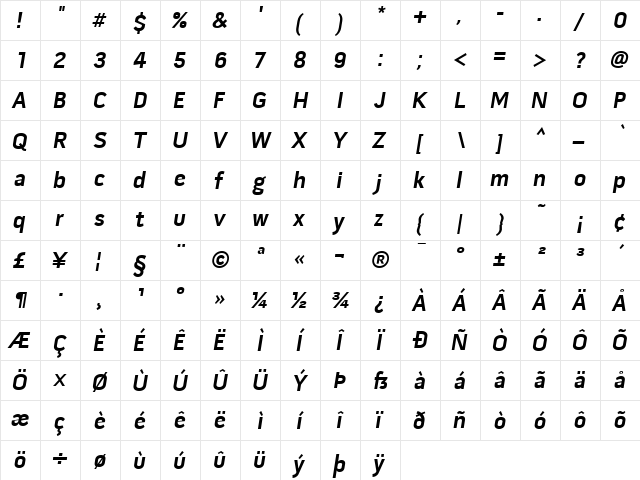
Pill Gothic 600mg Bold Obq
| Designer | Christian Robertson |
Design Context for Pill Gothic 600mg Typeface
Pill Gothic 600mg takes a clean, functional approach — its unadorned letterforms prioritise legibility and work reliably across screen and print environments. The heavy weight commands attention and anchors typographic hierarchies.
Well-suited to navigation labels, product packaging, and anywhere legibility at scale is essential.
Font Pairing: Use Pill Gothic 600mg for headlines alongside a lighter-weight sans or serif for body copy to establish clear visual hierarchy.
Pro Tip: Use Pill Gothic 600mg for UI labels, navigation, and short-form body copy where clean legibility is the priority.